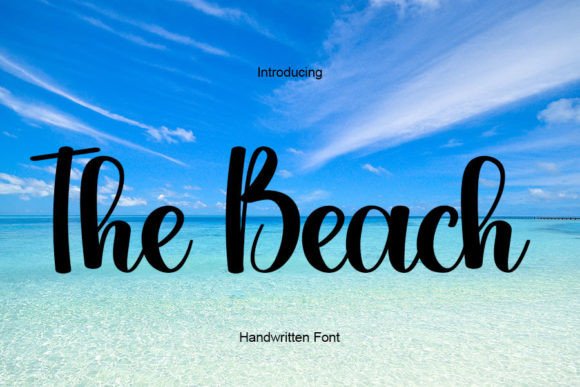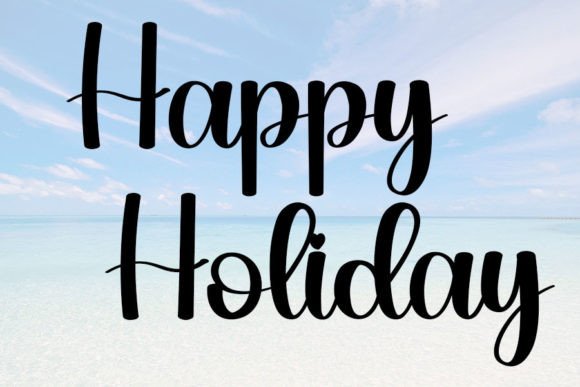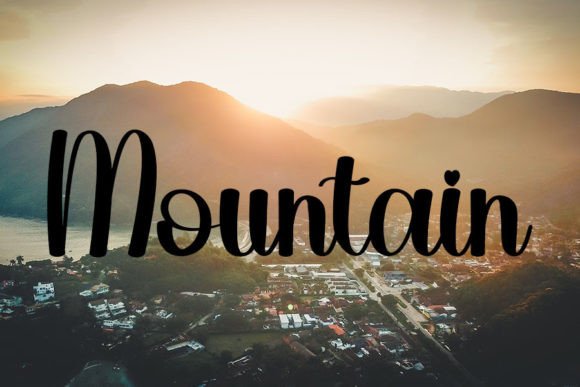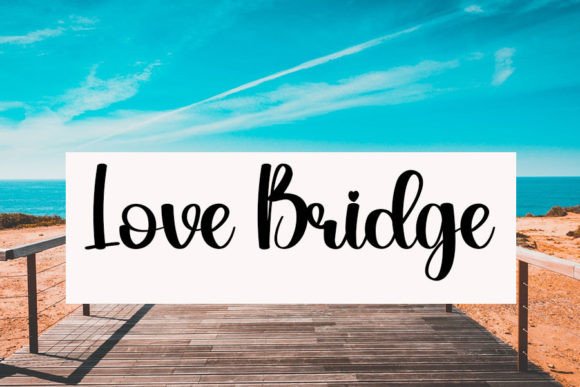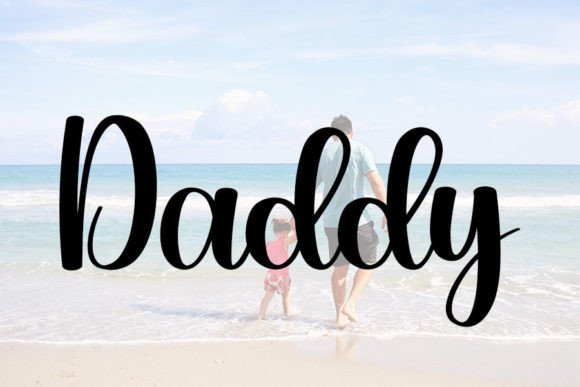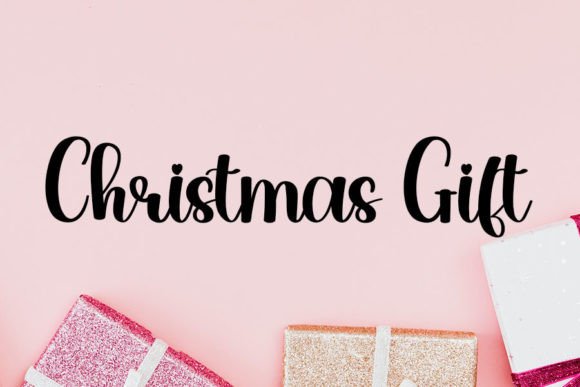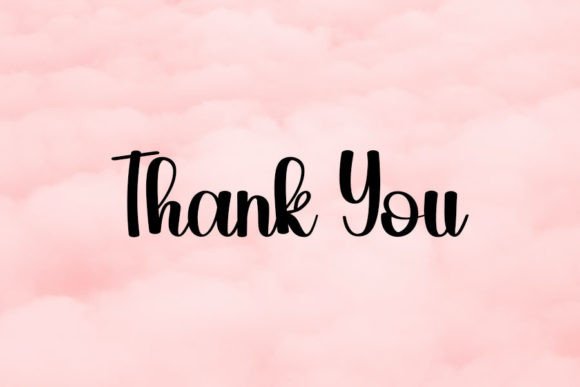
The Beach Font
A Neat and Beautiful Handwritten Font
The Beach Font is a neat and beautiful handwritten typeface that combines elegance with a relaxed, natural charm. Its graceful strokes and clean design make it the perfect choice for any project requiring a touch of class and sophistication. Whether you’re designing for branding, invitations, or greeting cards, this font brings a timeless and refined feel to your creations. Its distinct style ensures your designs stand out, capturing the essence of elegance and simplicity.
Ideal for Invitations and Wedding Designs
For wedding invitations and special event designs, The Beach Font is an ideal choice. Its elegant handwritten style is perfect for creating romantic invitations, save-the-dates, and thank you cards. Whether you’re designing for a beach-themed wedding, destination event, or elegant celebration, this font adds the perfect touch of sophistication. Its timeless, refined design ensures your wedding stationery feels both personalized and luxurious.
Great for Branding and Logos
For branding and logo design, The Beach Font offers a unique combination of elegance and approachability. Whether you’re creating a luxury brand, coastal business, or lifestyle logo, this font adds a sophisticated edge to your brand identity. Its beautiful curves and neat appearance make it the perfect font for businesses looking to create a memorable brand that combines professionalism and creativity.
Perfect for Product Packaging and Labels
The Beach Font is also great for product packaging and labels. Whether you’re working on packaging for cosmetics, beachwear, or handmade goods, this font adds an elegant, refined look to your product design. Its beautiful, clean lines and handwritten charm create a high-end and memorable impression, making your products stand out in a crowded market. Whether you’re designing labels for boutiques, gift boxes, or premium products, this font enhances your packaging with a touch of sophistication.
Ideal for Social Media and Marketing
For social media and marketing materials, The Beach Font ensures your designs are eye-catching and professional. Whether you’re working on Instagram posts, Facebook ads, or website banners, this font brings a timeless charm to your digital content. Its elegance and legibility make it perfect for promotions, quotes, or product highlights, adding an elevated touch to your marketing campaigns. Whether for luxury brands or creative services, this font helps convey your message with style.
Elegant, Legible, and Timeless
Despite its beautiful handwritten design, The Beach Font remains legible and easy to use. Its consistent strokes ensure that your text remains clear and readable, even at smaller sizes or for longer text blocks. Whether you’re using it for headlines, captions, or body text, this font provides the perfect balance of beauty and functionality, making it suitable for a wide range of design needs.
Add Elegance and Timeless Style to Your Designs with The Beach Font
If you’re looking for a neat, elegant, and beautiful handwritten font to elevate your designs, The Beach Font is the perfect choice. Whether you’re designing wedding invitations, branding, product packaging, or social media posts, this font adds a timeless, refined touch to your work. Let The Beach Font help you create memorable, elegant designs that leave a lasting impression.